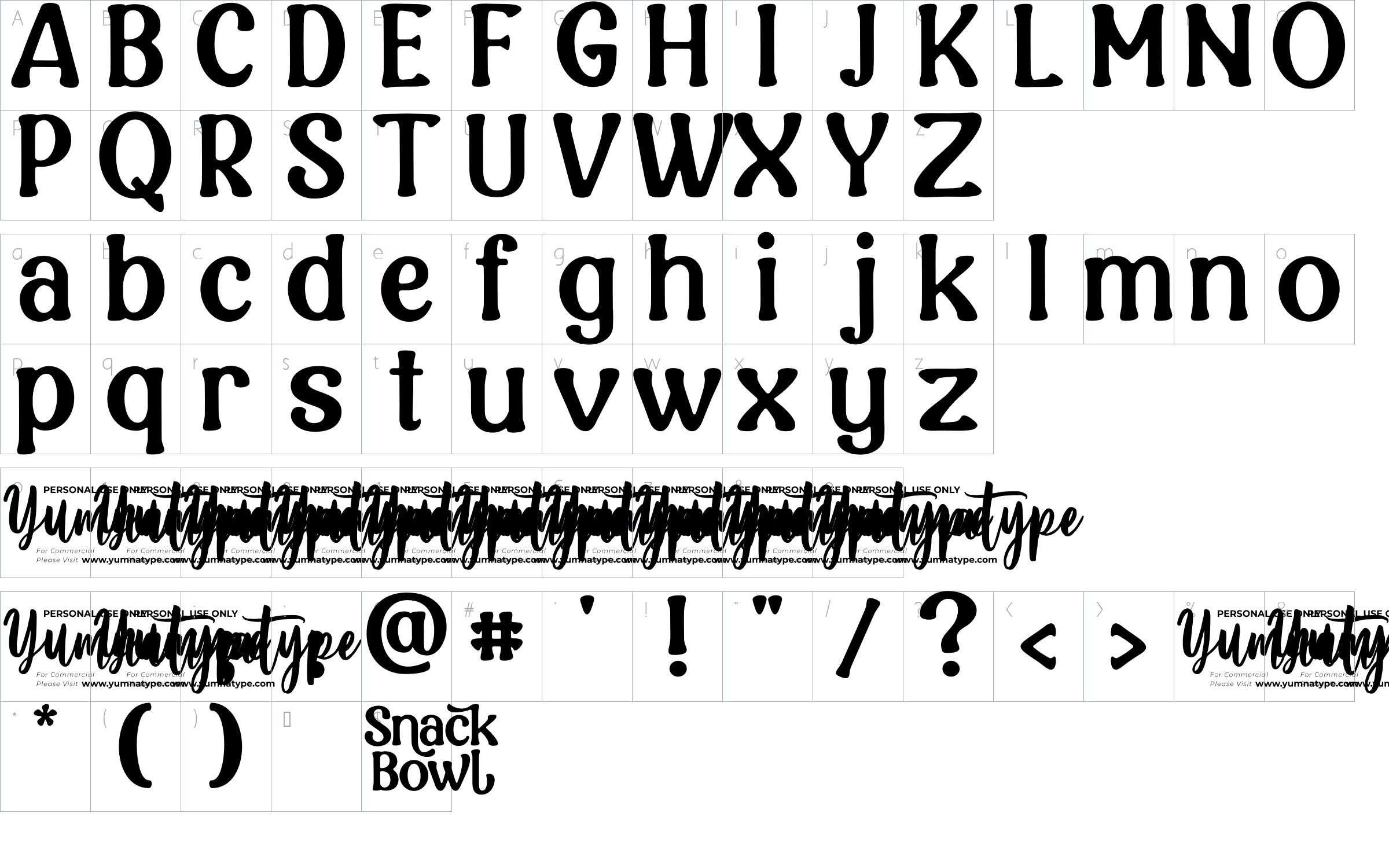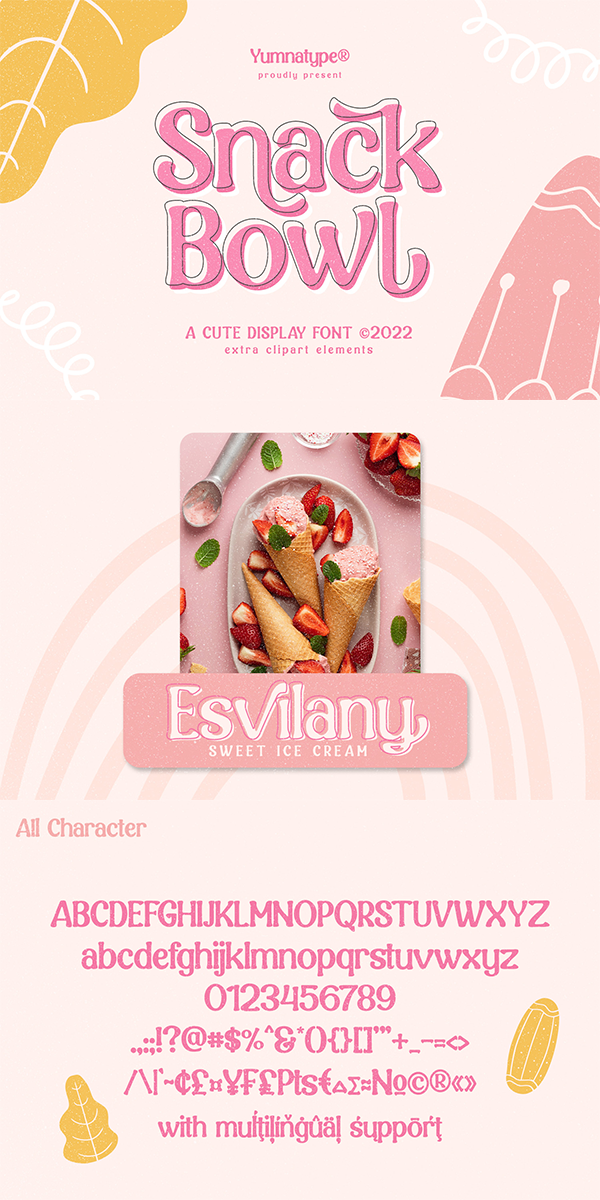
Snack Bowl Font
About Snack Bowl
Snack Bowl is a fun and cute display font that comes with solid weight. It is easy to read and will look great in a variety of header and title sizes. You also get 15 illustrations as special extra that you can use as you wish.
-Uppercase and lowercase
This font would looks great on your branding, logos, social media quotes, stickers, posters, wall art, merchandise, social media, and many more. Get more inspiration about how to use it by seeing the font preview.